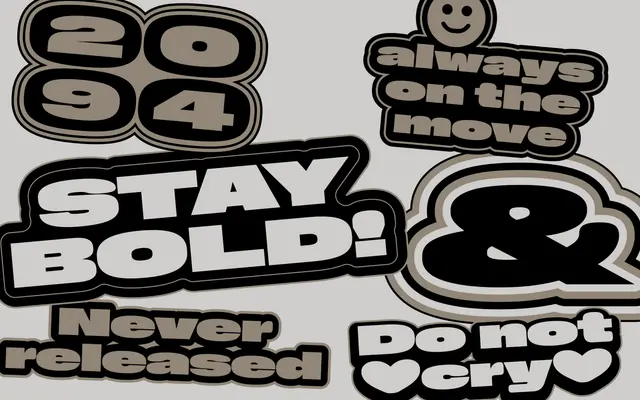
NaN Holo Gigawide Ultra
NaN Holo Gigawide Ultra is the widest and heaviest member of the 36-style Holo family, designed by Luke Prowse with additional work from the NaN team. The typeface blends rectangular counters with rounded curves in a way that reads as simultaneously archaic and futuristic, drawing explicit conceptual reference to Blade Runner's Voight-Kampff test. At large sizes the tension between its squared and rounded details is felt as warmth and surprise; at smaller sizes those details collapse into a workable, personality-laden text face.
NaN describe Holo as a neo-Grotesk built on an industrial frame with biological forms; rectangular counters combined with round curves place it squarely in the neo-grotesque category with display-oriented proportions.